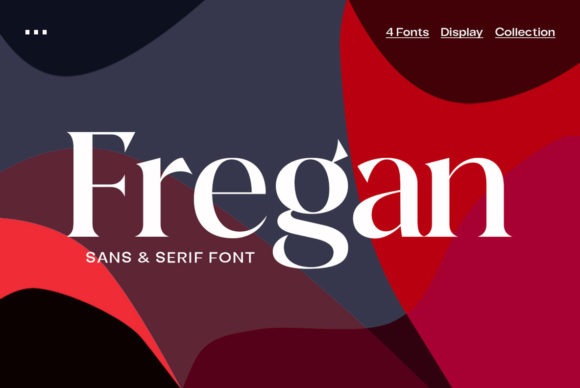
In the realm of typography, where visual aesthetics reign supreme, allow us to introduce you to Fregan Font, a typeface that's not just a font, but an experience. This serif masterpiece, meticulously crafted by seniorsstudio, is an artistic symphony that melds the precision of geometric shapes with the grace of organic curves.
Fregan Font is a captivating duo font, a harmonious blend of sans serif and serif styles, each stroke imbued with elegance and personality. Its characters dance across the page, evoking a sense of timeless sophistication. Inspired by the allure of old-style vibes, Fregan Font transports you to an era of classic beauty and refined taste.
Whether you're a creative professional seeking to leave an indelible mark or a design enthusiast yearning for a touch of sophistication, Fregan Font is your muse. Its versatility shines in a myriad of applications - from elegant branding that exudes professionalism to captivating magazine designs that allure readers with their visual eloquence.
Envision your logo adorned with Fregan Font's distinctive charm, attracting attention and leaving a lasting impression. Craft headlines that resonate with power and grace, commanding attention amidst a sea of mediocrity. Unleash your creativity in poster designs, where Fregan Font's eloquence elevates your message to new heights.
Adorn your packaging with the allure of Fregan Font, transforming mundane products into objects of desire. Create cards that convey heartfelt sentiments with an air of timeless elegance. Elevate your wedding invitations with the timeless beauty of Fregan Font, ensuring your special day is forever etched in the hearts and minds of your loved ones.
Fregan Font is more than just a font; it's an investment in your creative journey. Embrace its allure and watch as your designs blossom into masterpieces, captivating audiences and leaving an enduring legacy of beauty and sophistication.